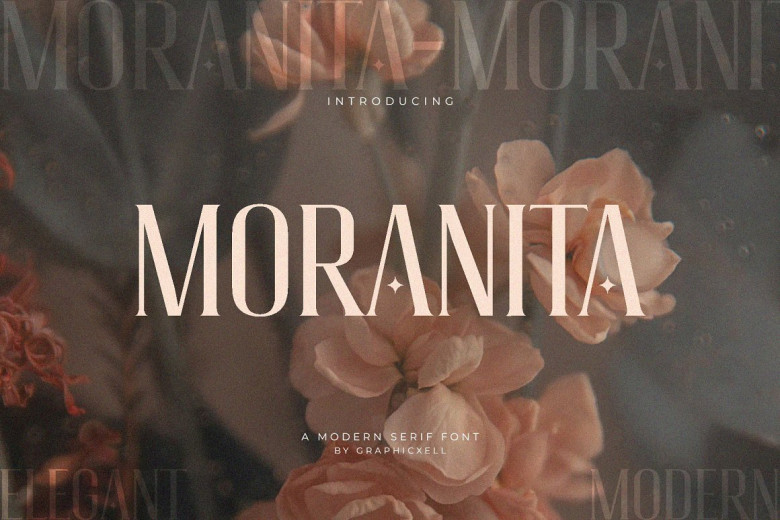
Moranita Font
Moranita elegant Serif font, inspired by a popular minimalist logo design, is ideal for use when creating templates, brochures and videos, advertising branding logos, invitations, layout design, elegance crafting beauty design projects and much more.
Moranita Elegant Serif Font